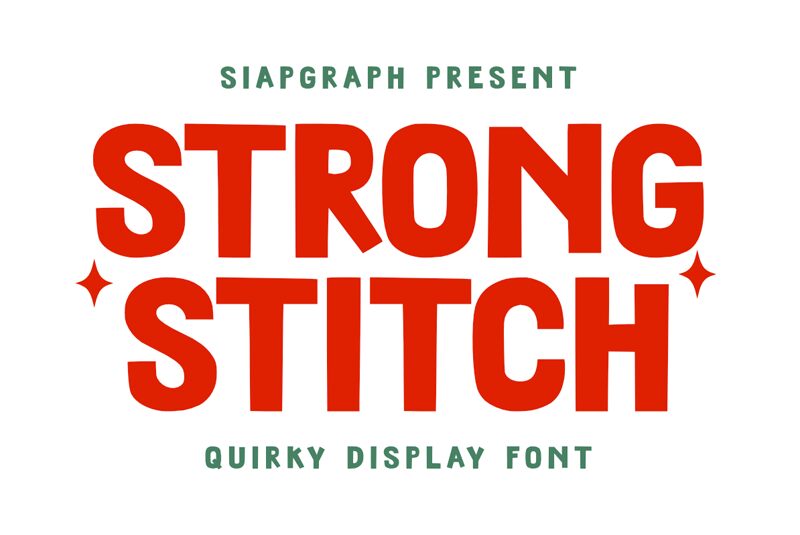
Strong Stitch font by Siapgraph is your classic cartoon free font with immediate vibrant presence. This collection stems from a single stitch, a sewing reference, given the characters’ elegant stitches and dashes. And although fabric is usually associated with high fashion, this one allows you to display an individual fashion sense and style created with flamboyant letters and cartoonish features.
Your projects will now shine with captivating and funky displays, whether they appear on notebook covers, tile designs, CD album art, or stickers. Create typography art for artists and music genres like techno or product badges for DIY kits and handmade items, focusing more on the letters and symbols used than the language.